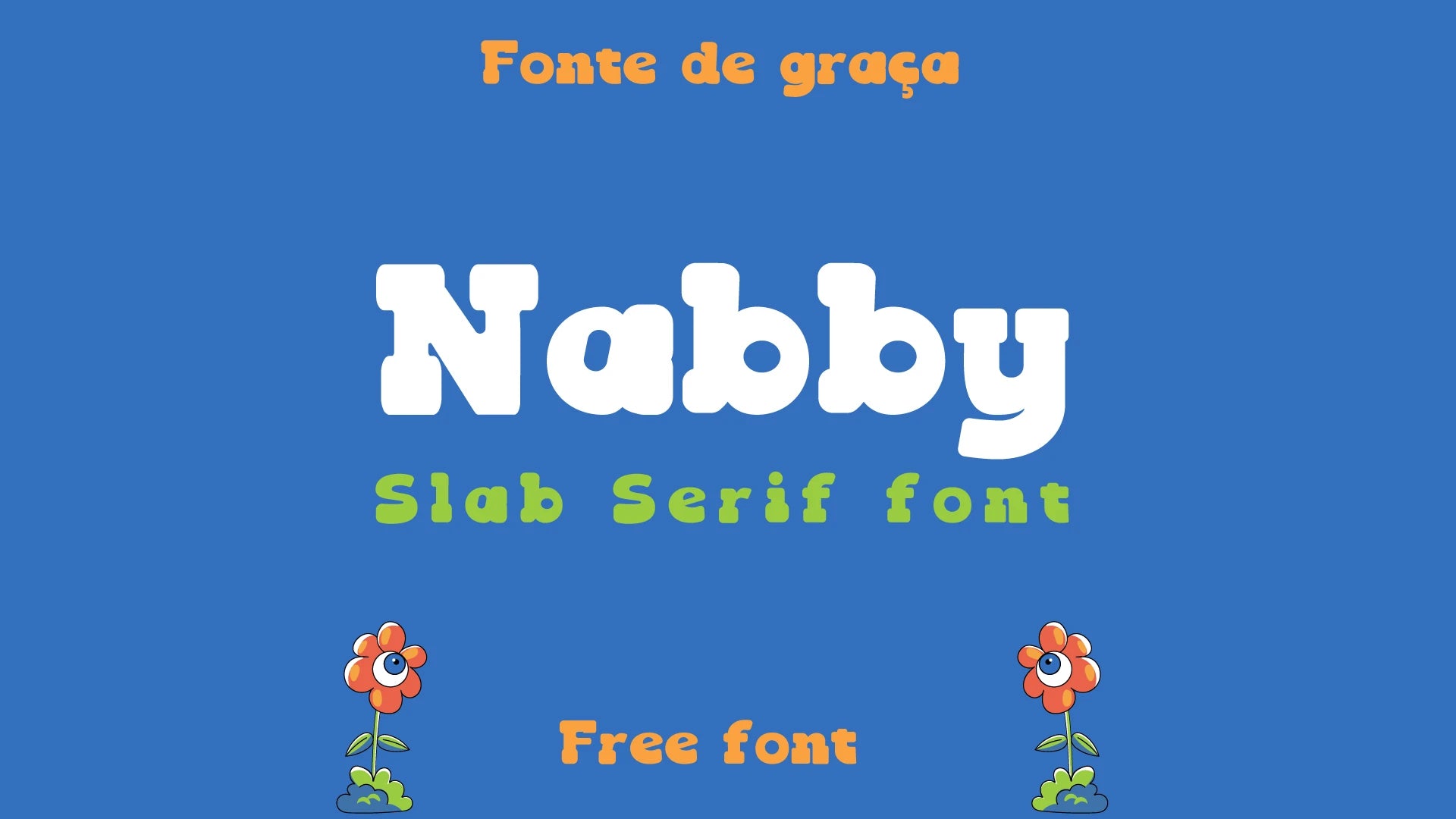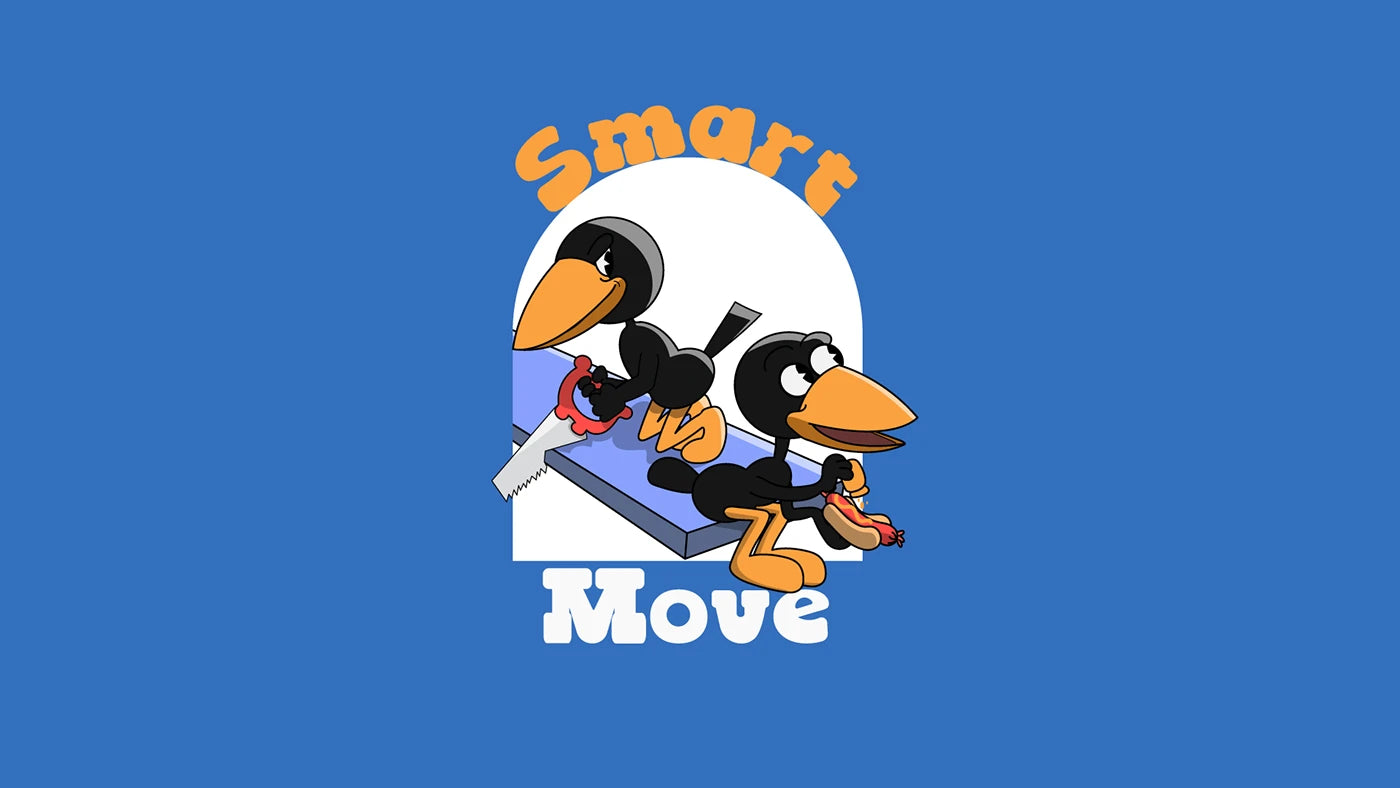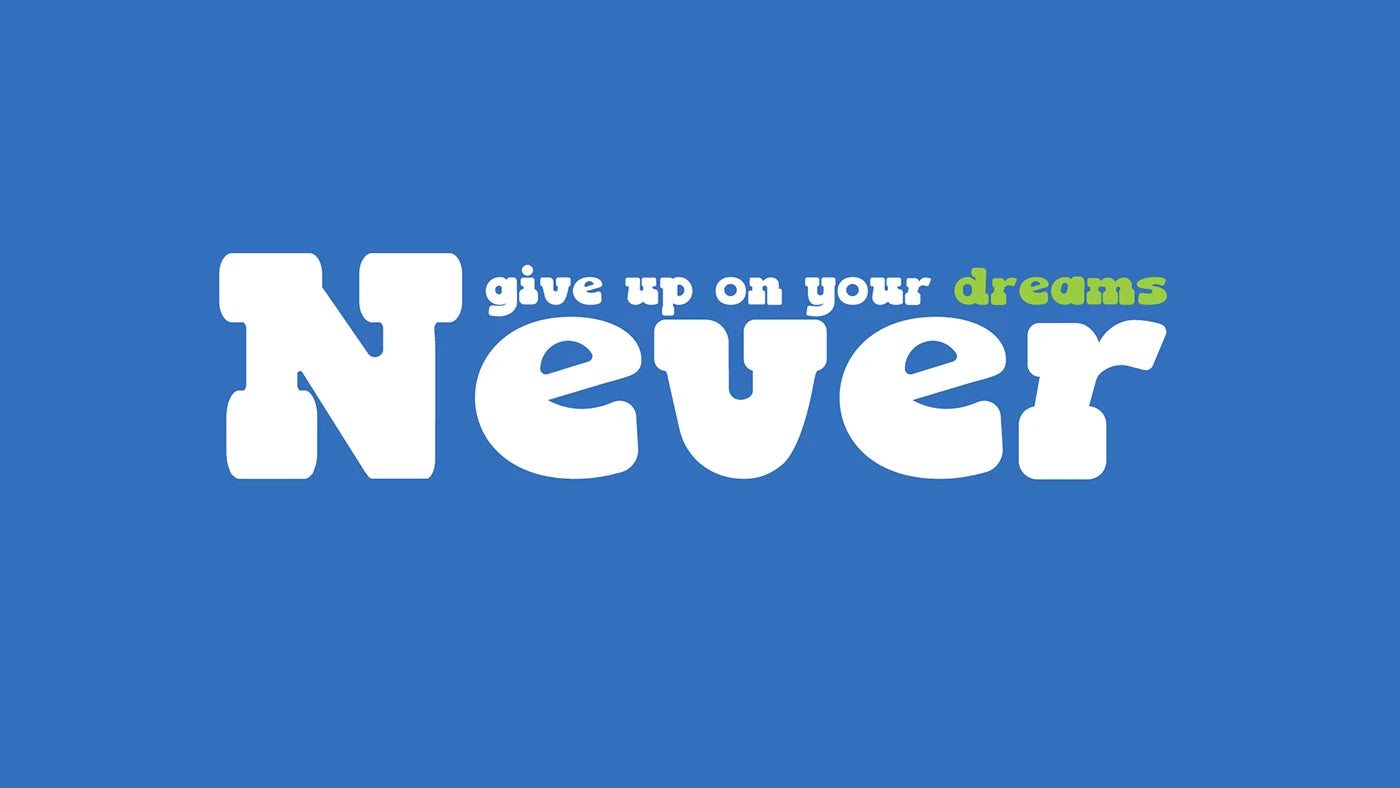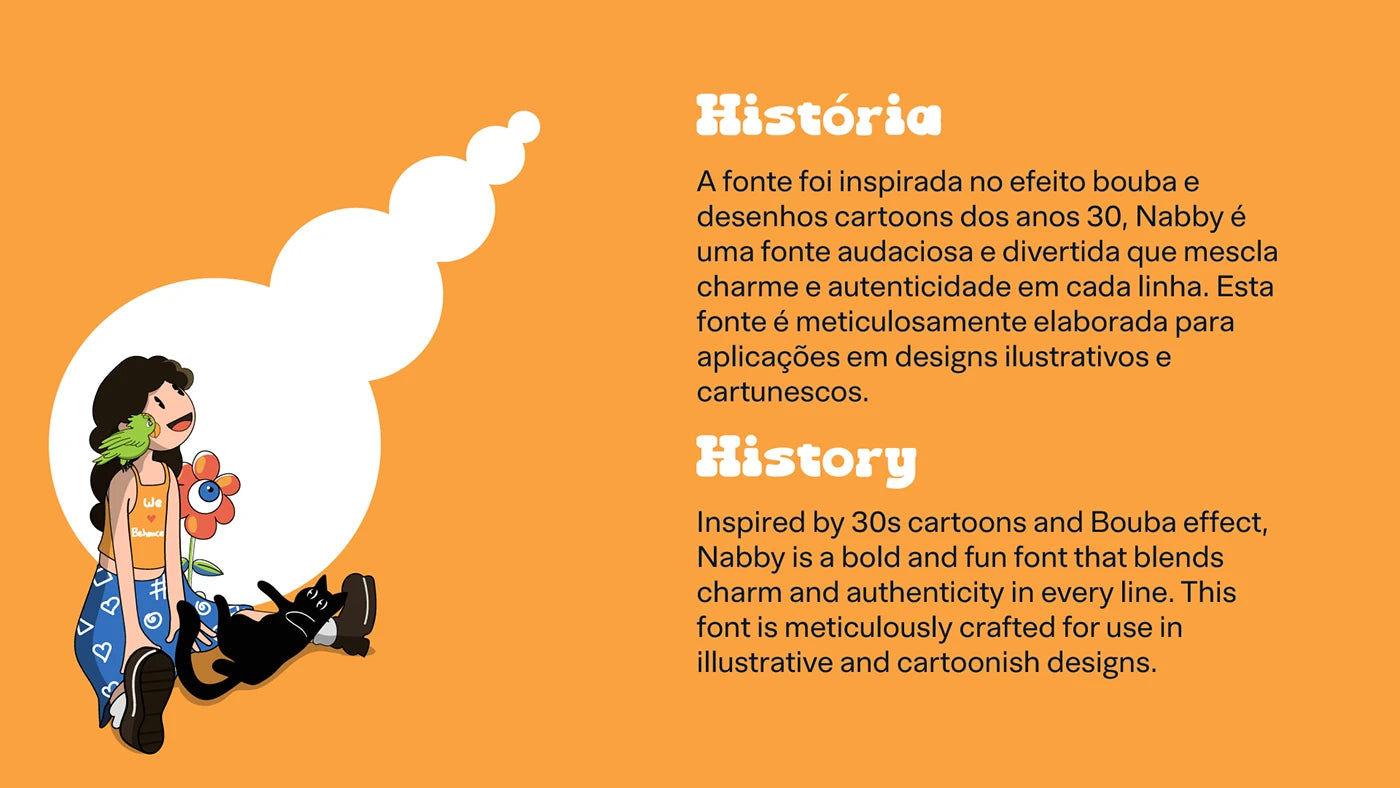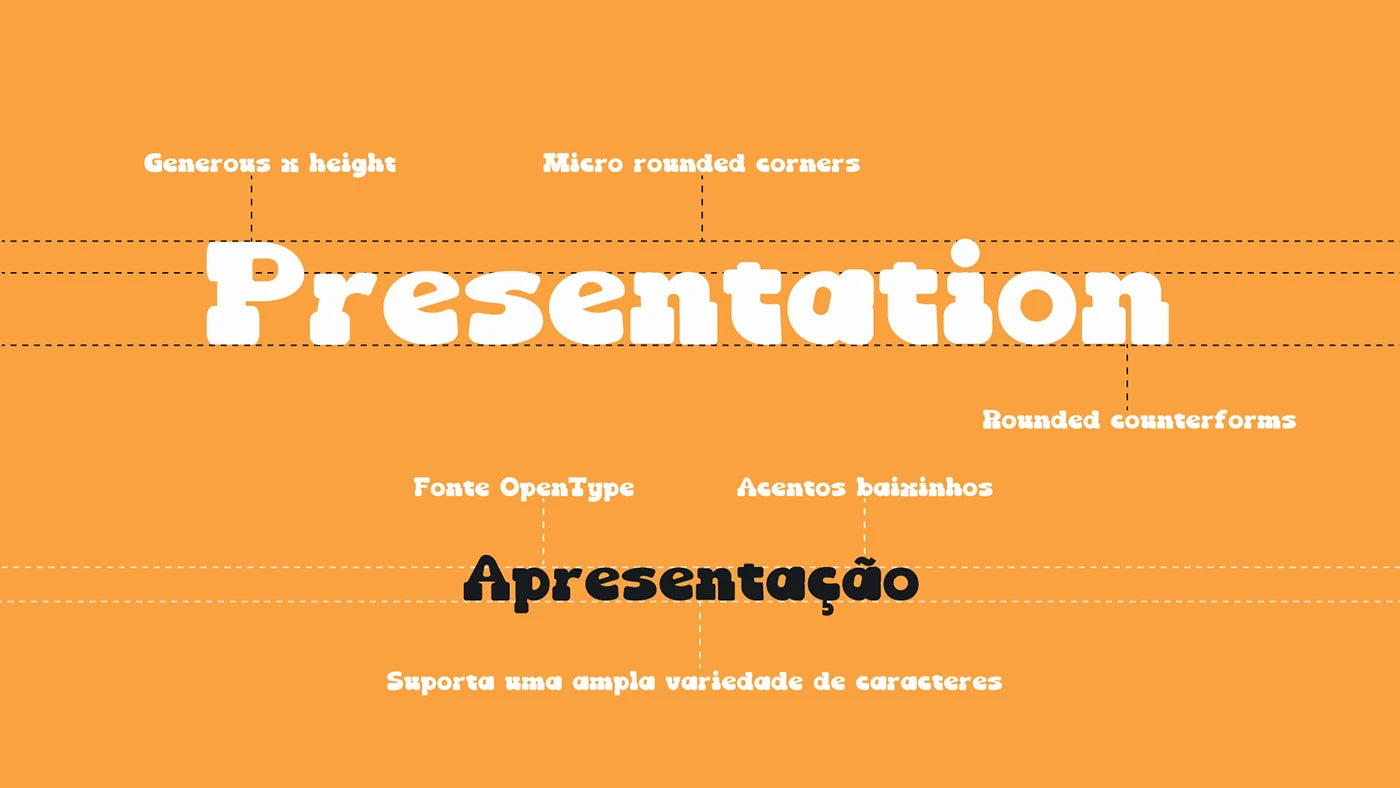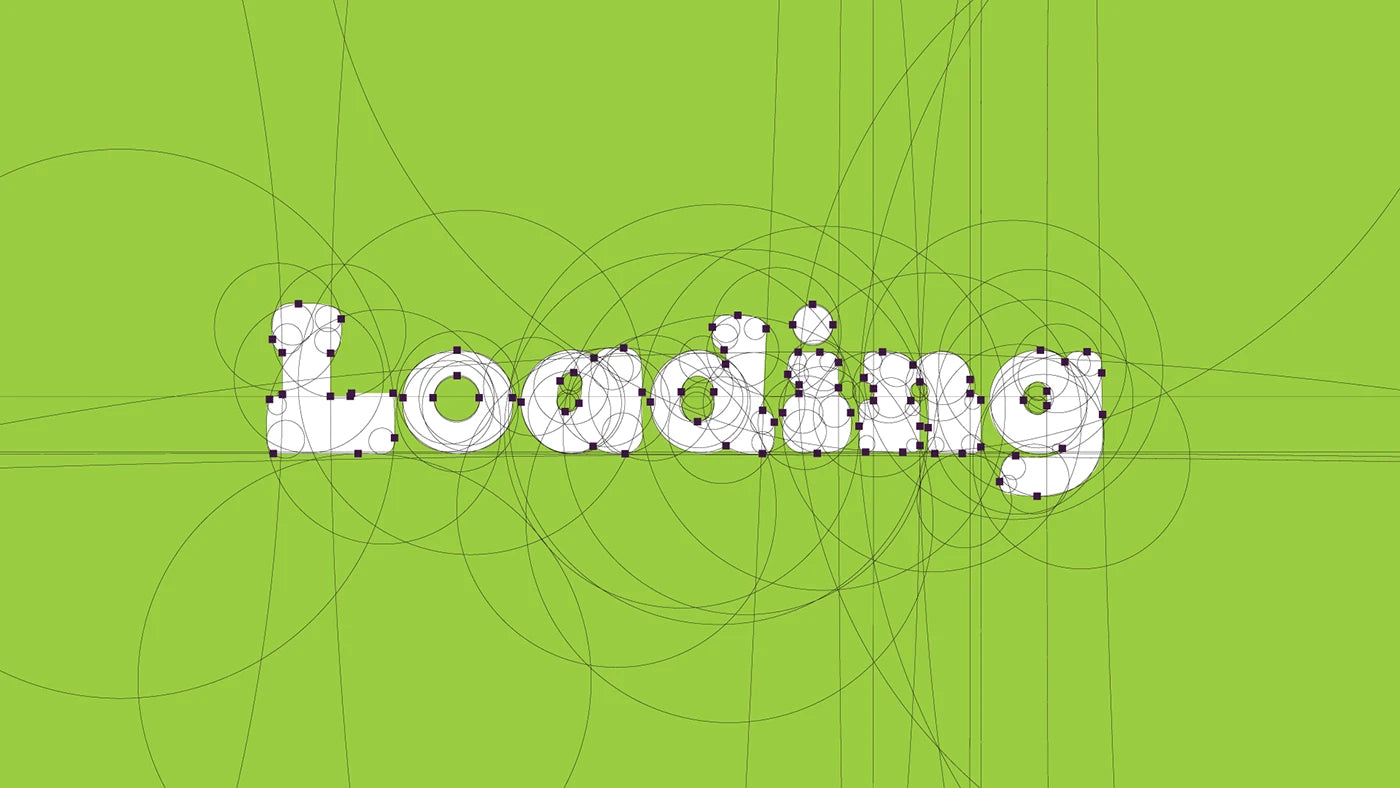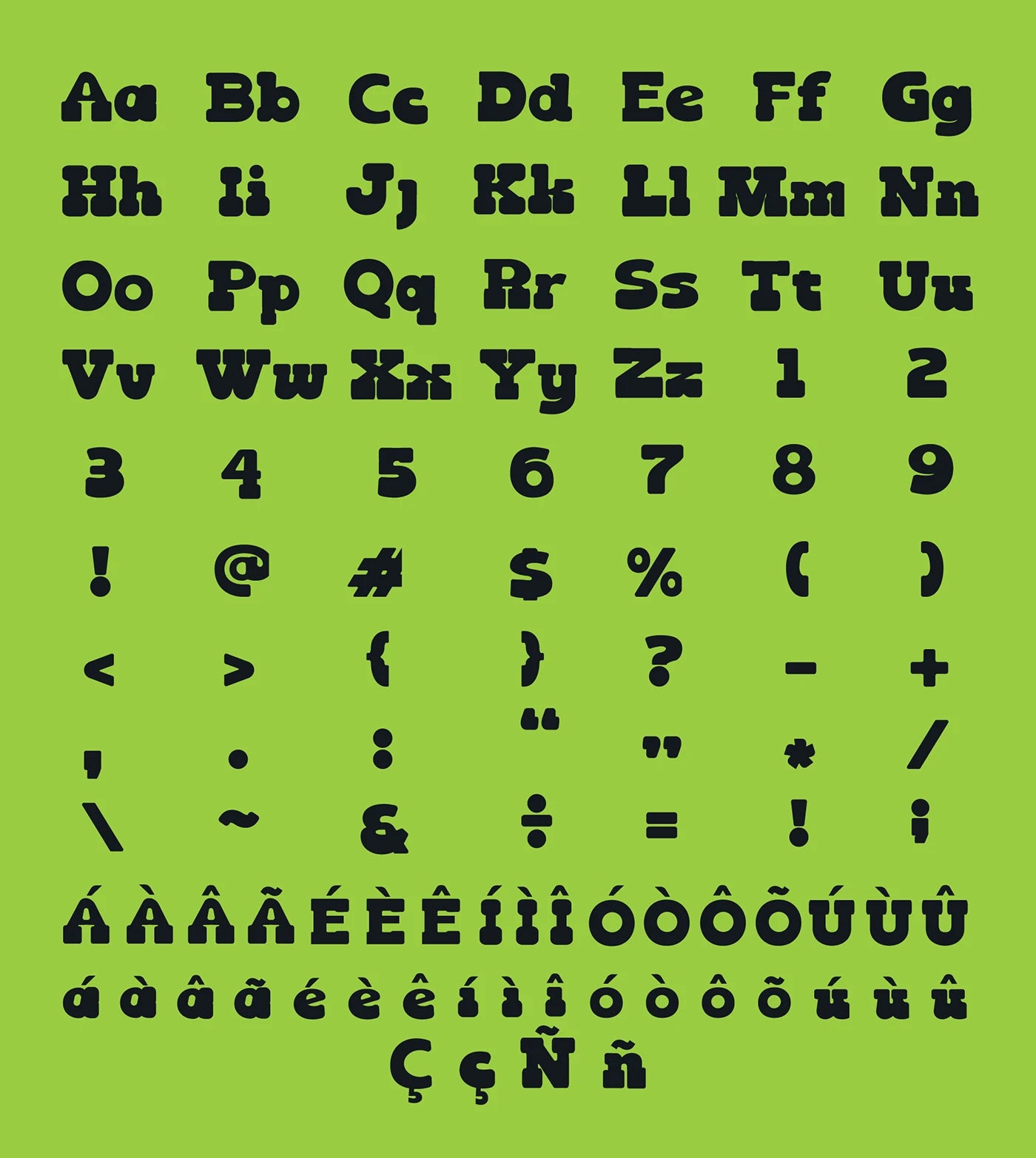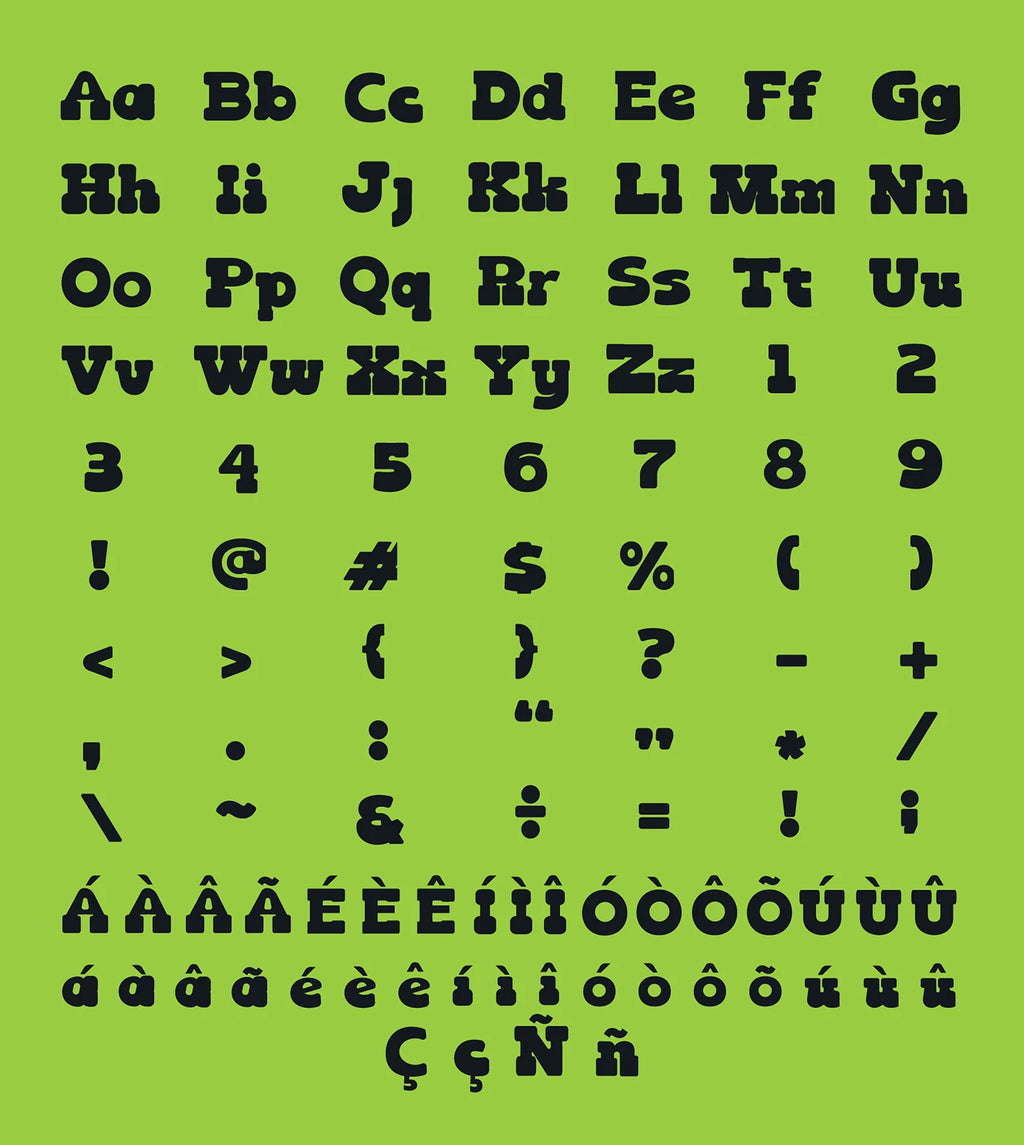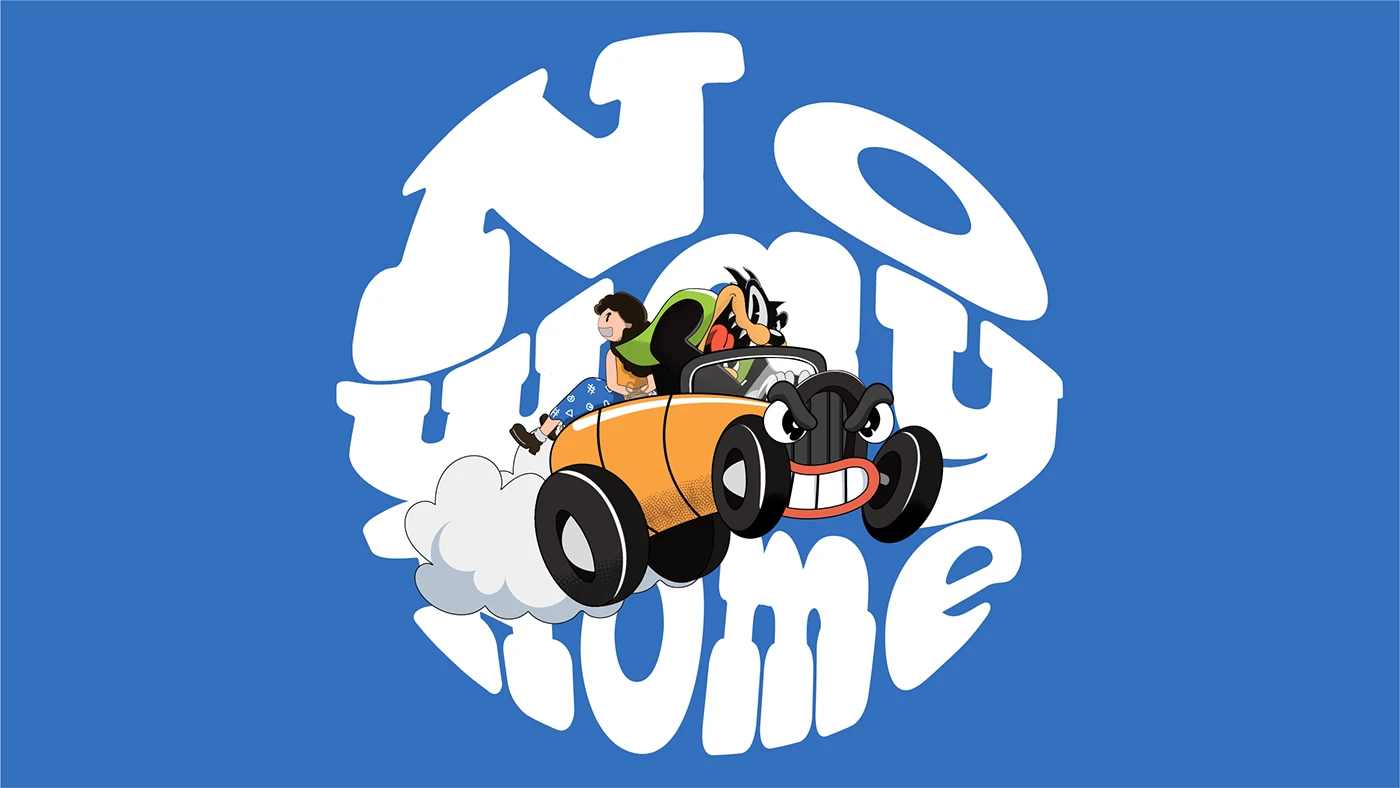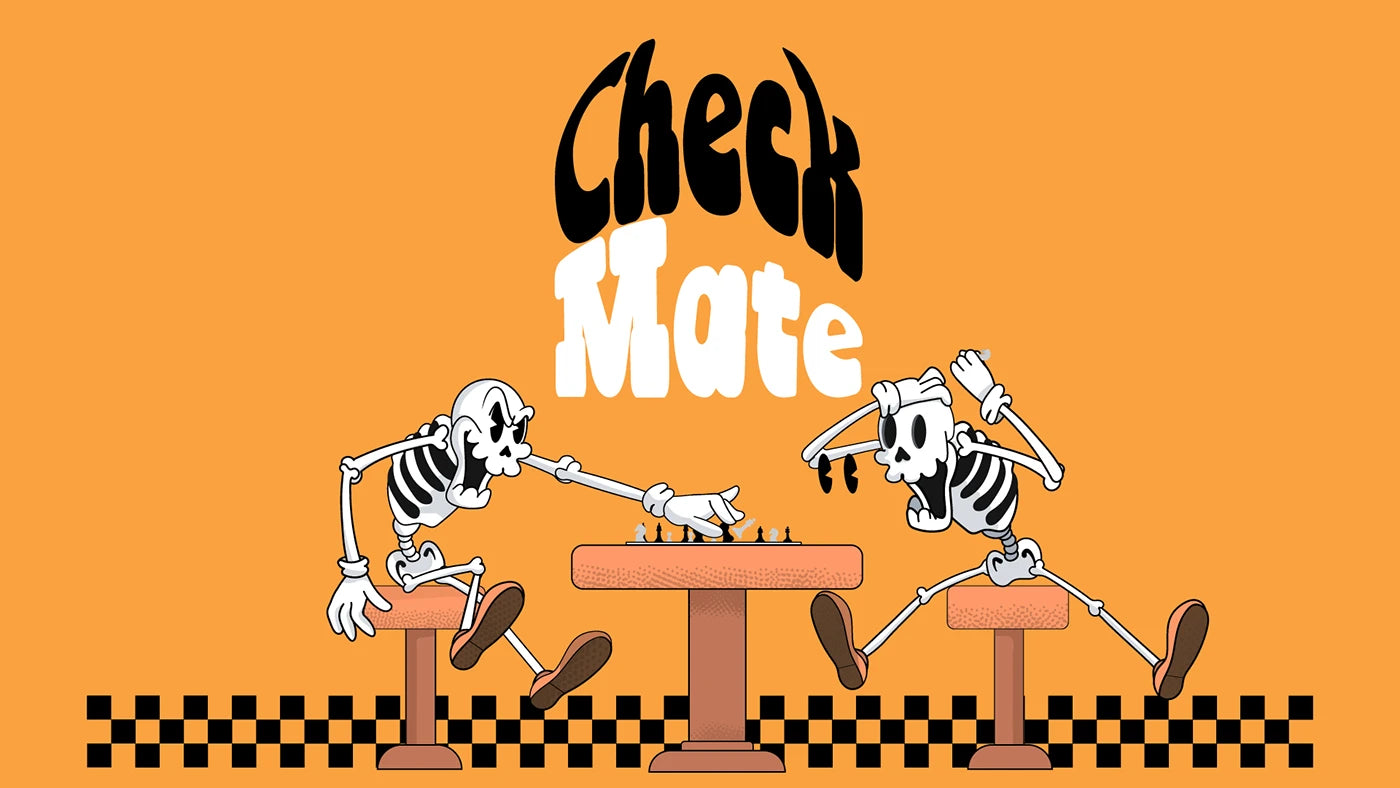
Inspired by 30s cartoons and Bouba effect, Nabby from Gustavo Yang is a bold and fun font that blends charm and authenticity in every line. This font is meticulously crafted for use in illustrative and cartoonish designs, this font transmit fun, and energetic feel—suitable for posters, children’s content, party invitations, or playful branding.